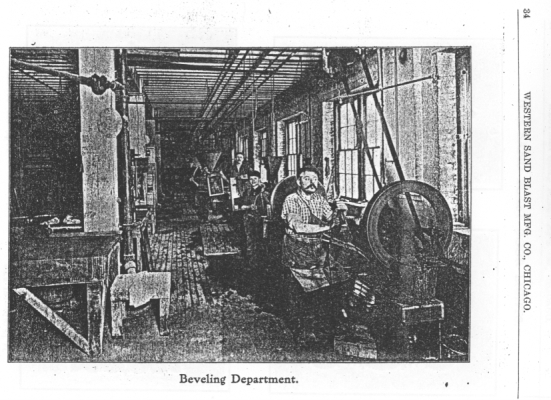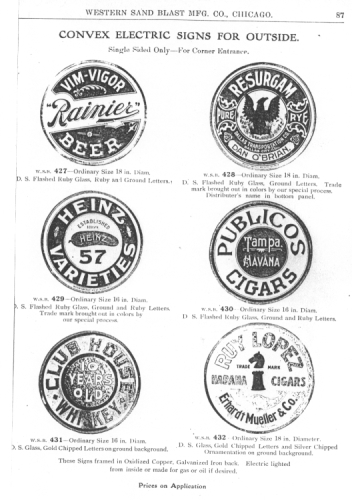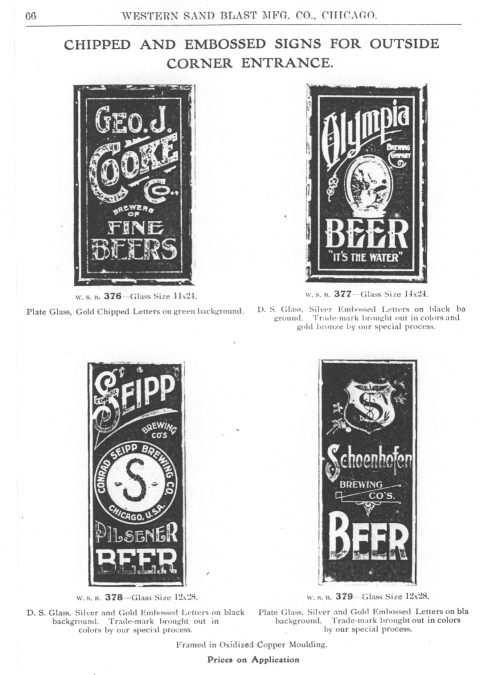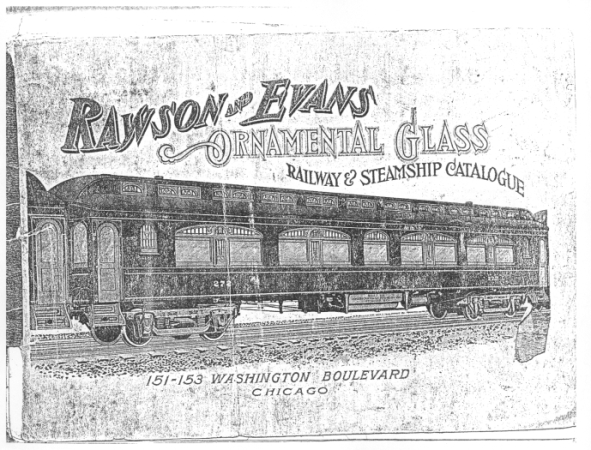
Western Sand Blast Catalog
The Details:
This catalog was copied from a copy, and NOT copied from an original.
There were only 53 pages of a supposedly 132 page catalog available.
Still if you do not look at the page numbers..it looks and feels like a complete catalog.
The images appear to be turn of the century, with some electrical signs of the era on a few pages.
When looking at this catalog, it sometimes feels like you are looking at an Rawson & Evans 1896 Catalog.
As some of the images are from the R&E catalog...how weird is that? Can you say plagiarism?
Also remember that as the years went on, Western Sand Blast bought up much of the Chicago area competition; P. Pause, Rawson & Evans; General; and others. So a lot of the images come from those now defunct businesses. So you are not just getting a Western Sand Blast Catalog, you are getting to view a variety of makers from the era.
To date no partial or complete Western Sand Blast Catalog has emerged, original or copy.
So this is the only edition you will most likely see in your lifetime.
I know, I know...never say never....as we are always proved wrong. Good, prove me wrong, and lets have a complete original show up.
I have added to this catalog a three page history of the company, from its beginning to its end, and a few other tip ins for your enjoyment. Not to mention the nice cover artwork I put together for your viewing pleasure. Oh, and let me not forget, there's a patent in here also...you're welcome.